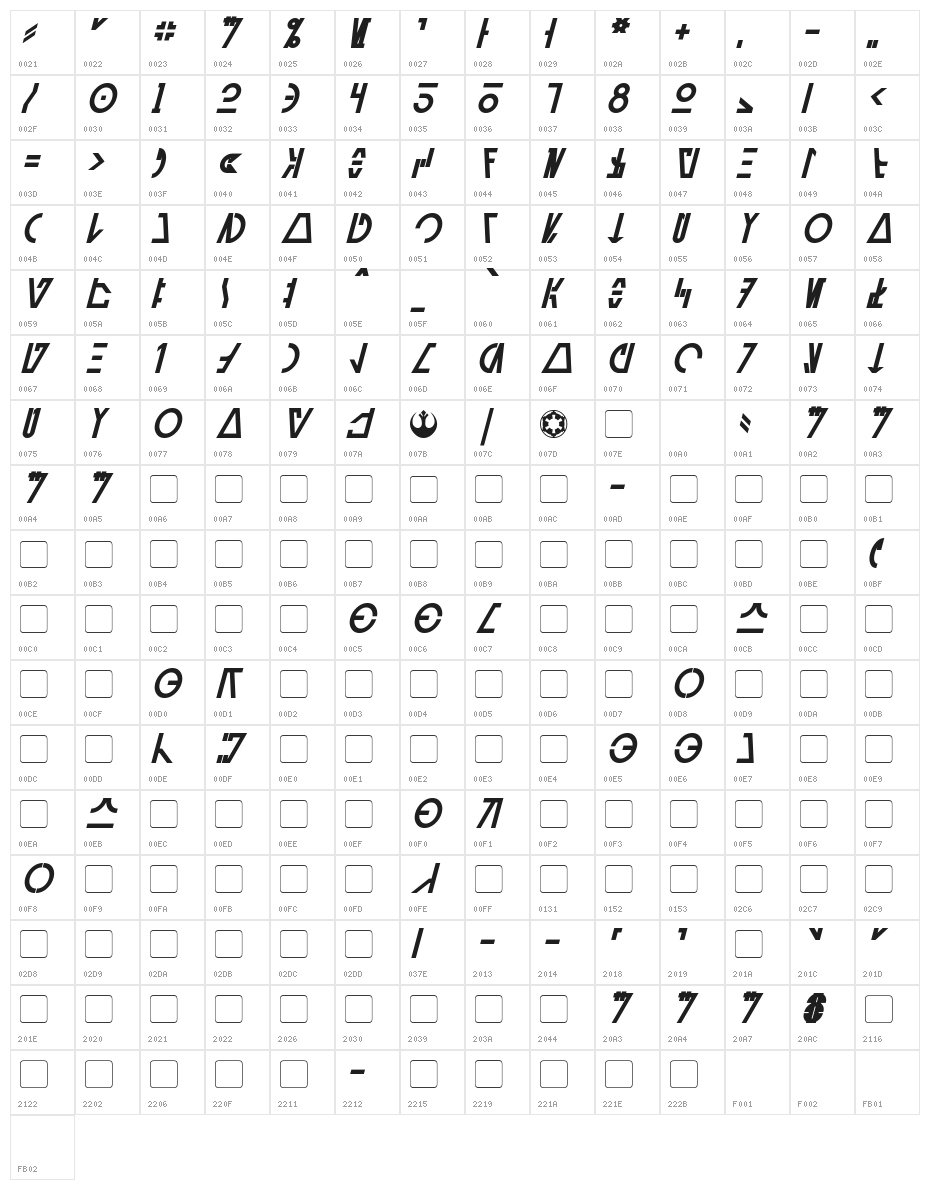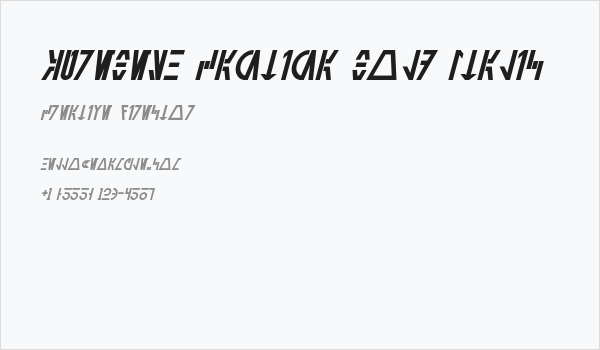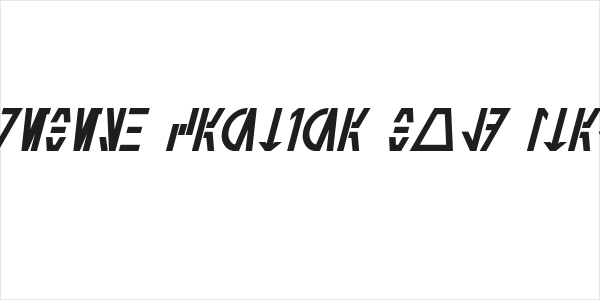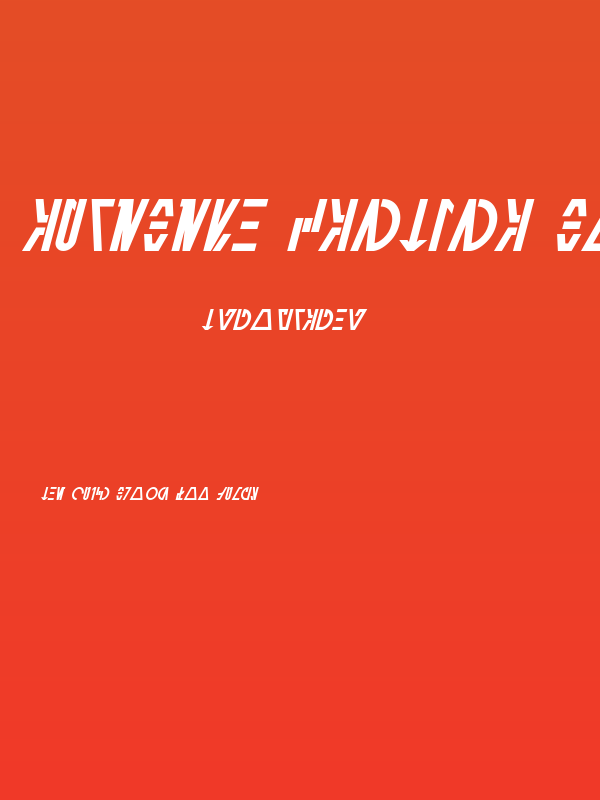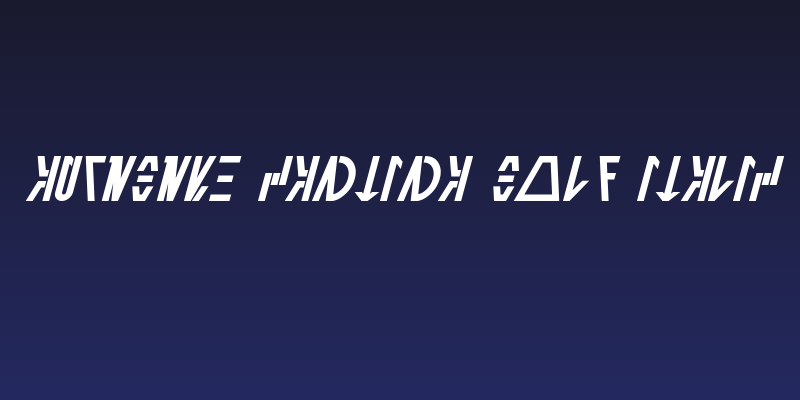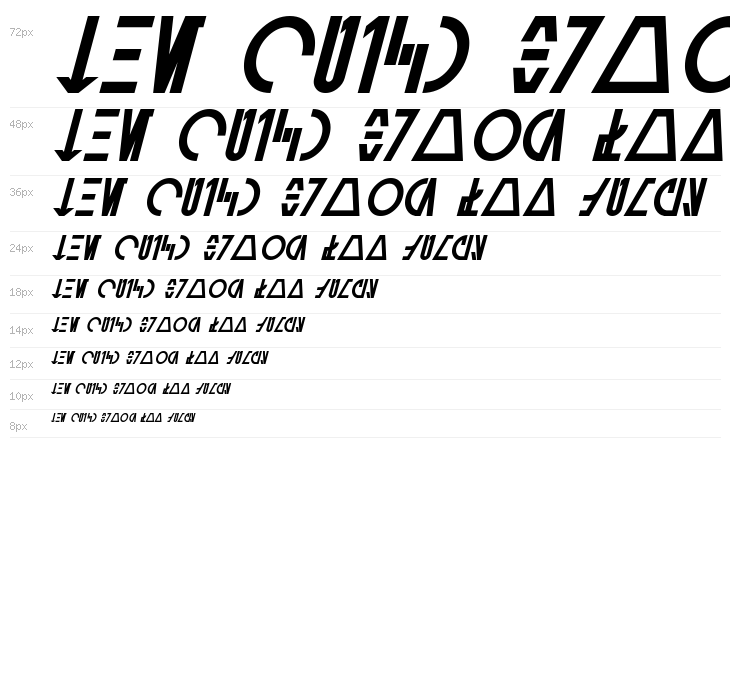
Aurebesh Cantina Bold Italic Font
Aurebesh Cantina Bold Italic Description
This font is a stylized script that mimics a fictional language, often associated with a sci-fi universe. It features angular, geometric shapes with a bold and italicized appearance, giving it a dynamic and futuristic look. The characters are distinct and easily recognizable, with a consistent slant that adds to its unique aesthetic. The numbers and special characters follow the same design principles, ensuring uniformity across the font set. This font is perfect for creating themed designs that require an out-of-this-world feel.
| Use Case | Logos, Posters, Themed Events |
| Proposed Projects | Ideal for use in sci-fi themed projects, movie posters, video game graphics, and themed event invitations. |